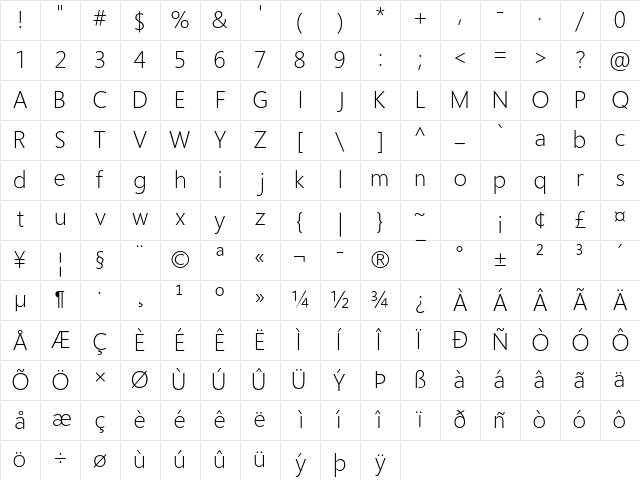
Complete Homizio Nova Light glyph index. Displaying only characters natively supported by Homizio Nova Light font.
Homizio Nova is a composed and adaptable typeface that performs quietly and consistently across a wide range of design contexts. Its slender proportions lend an understated elegance to any composition.